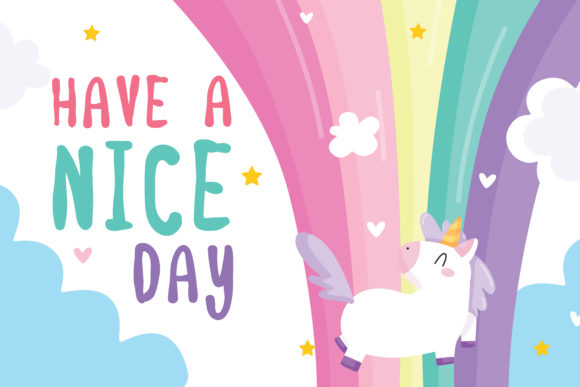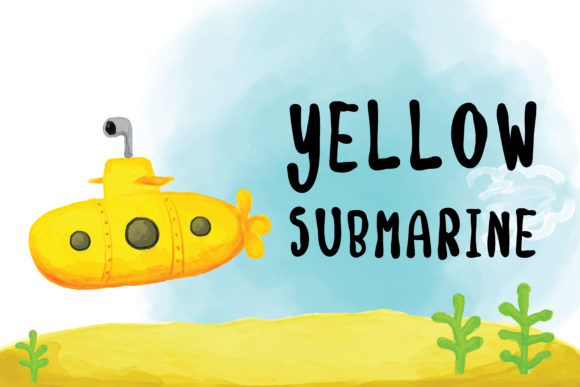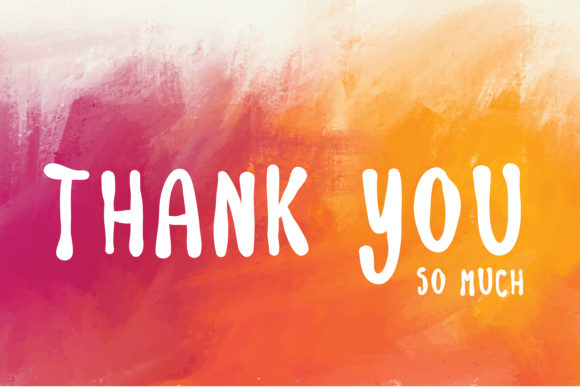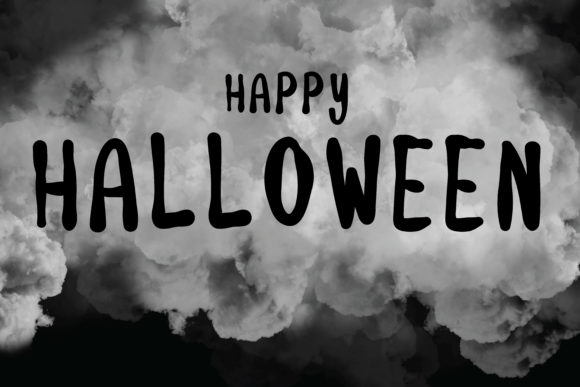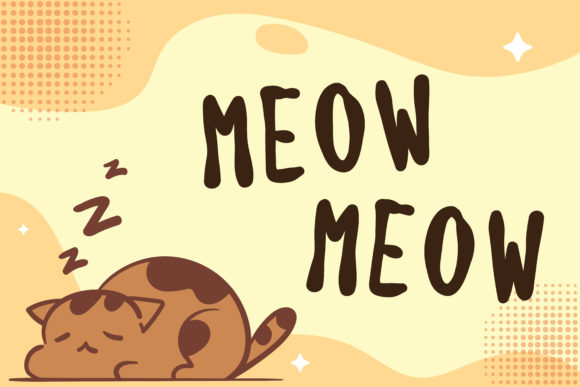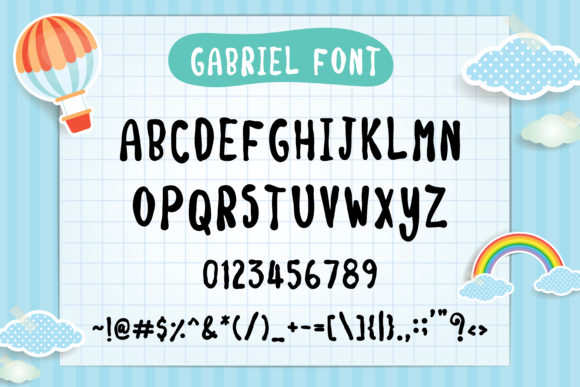
The Quest for the Perfect Font: How Gabriel Font Stole My Heart
I still remember the design project that led me to discover Gabriel Font. I was working on a whimsical branding campaign for a crafty client, and I was on a mission to find the perfect handwritten font that would bring their brand to life. Hours turned into days, and days turned into weeks, as I scrolled through font after font, but nothing seemed quite right. That was until I stumbled upon Gabriel Font – a cute and quirky handwritten font that instantly captured my heart.
So, what makes Gabriel Font so special? Here are a few things that I absolutely love:
- ✨ Unique character: Gabriel Font has a distinct, hand-crafted feel that sets it apart from other fonts.
- ✅ Highly legible: Despite its quirky nature, Gabriel Font is surprisingly easy to read, even at smaller sizes.
- 🎨 Versatile: This font is perfect for a wide range of creative projects, from branding and packaging to invitations and crafts.
Of course, no font is perfect, and Gabriel Font has a few minor quirks to be aware of:
- 🤔 Limited formal styles: Gabriel Font is primarily designed for informal, creative projects, and may not be the best fit for more formal or corporate designs.
The Story Behind Gabriel Font
Gabriel Font was designed with the creative hobbyist in mind. Its creator, a passionate typographer, aimed to craft a font that would inspire artists, crafters, and designers to push the boundaries of their creativity. With its unique character and versatile design, Gabriel Font has quickly become a favorite among creatives.
| Font Name | Gabriel Font |
| Author | Pila Studio |
| What type of projects is Gabriel Font best suited for? | Gabriel Font is perfect for creative projects, such as branding, packaging, invitations, and crafts. Its unique character and quirky feel make it ideal for informal, artistic designs. |
| Is Gabriel Font easy to read? | Yes, despite its quirky nature, Gabriel Font is surprisingly easy to read, even at smaller sizes. |
| Are there any similar fonts to Gabriel Font? | Yes, some similar fonts to Gabriel Font include Pacifico, Great Vibes, Lobster, and Carolyna Pro. Each of these fonts has its own unique personality and style. |